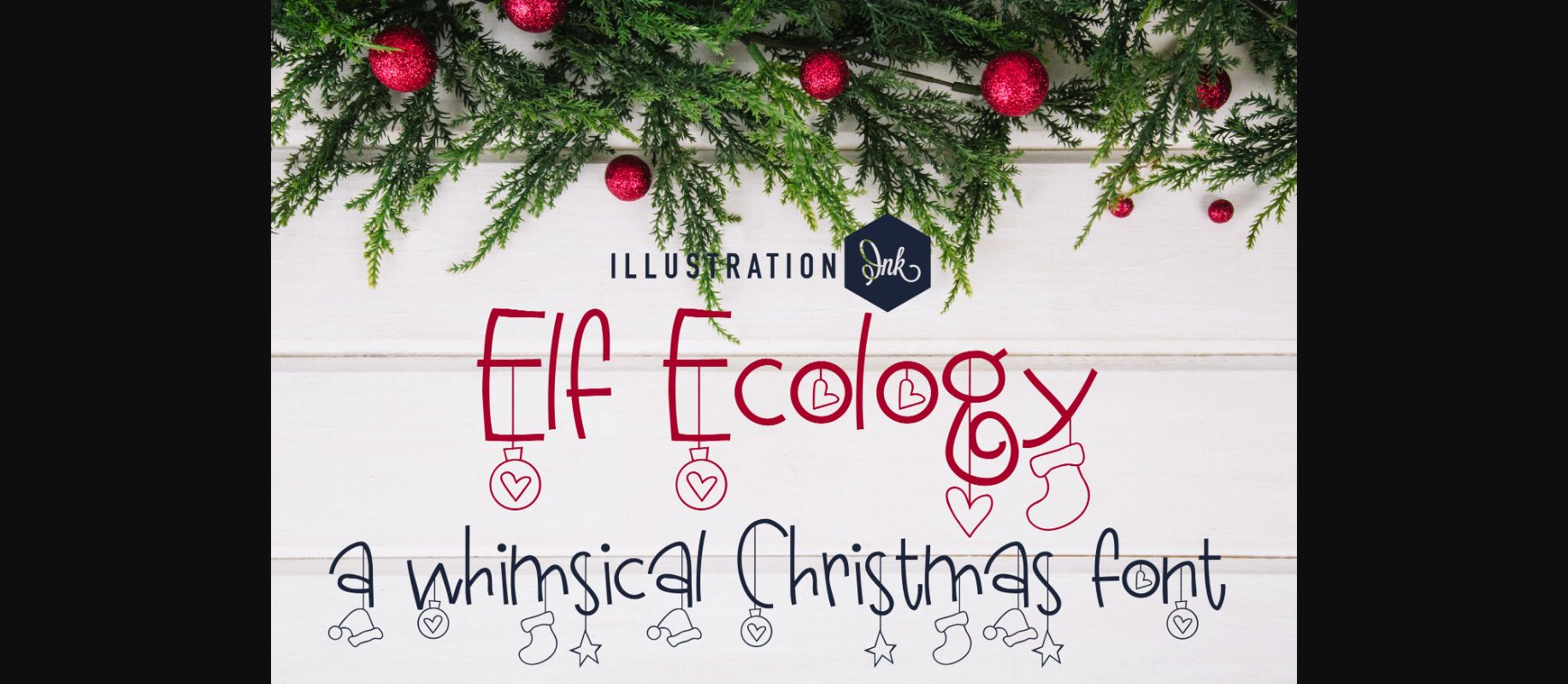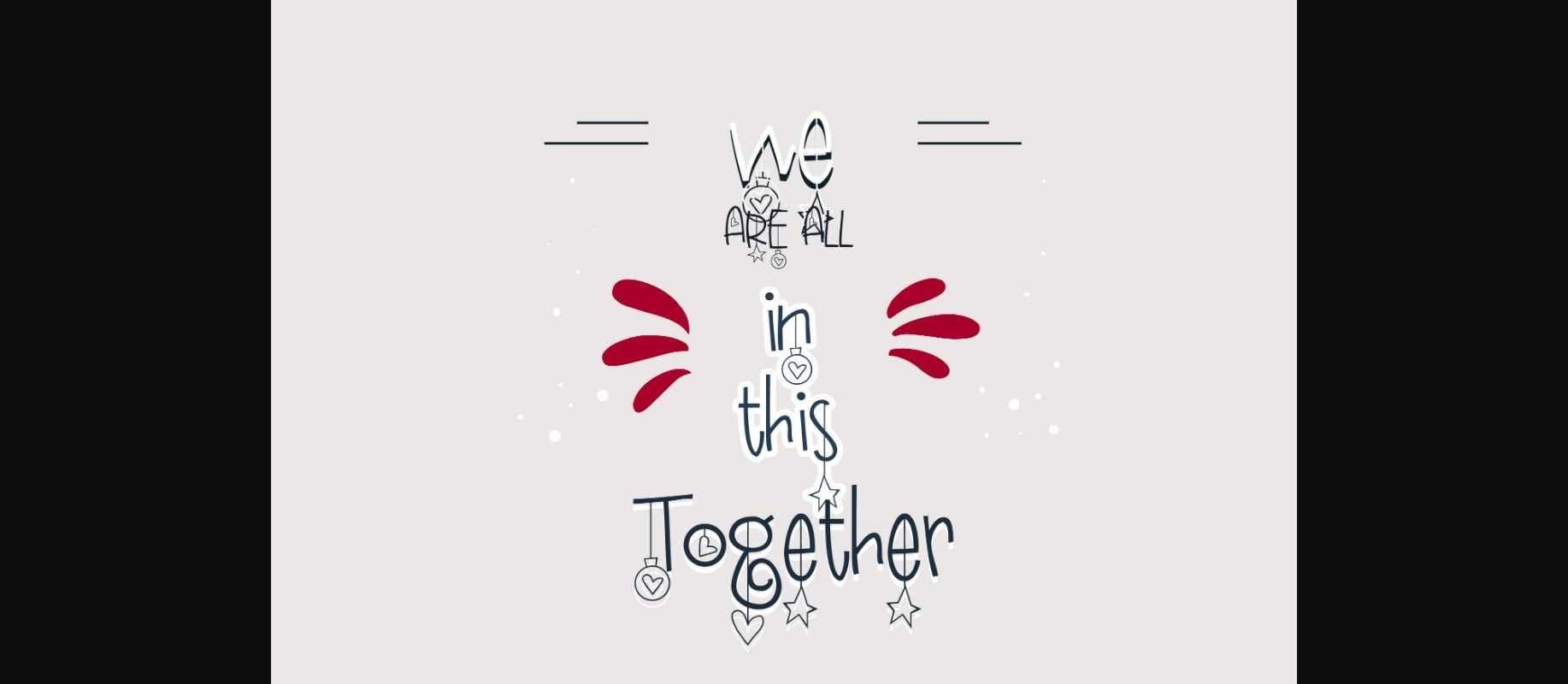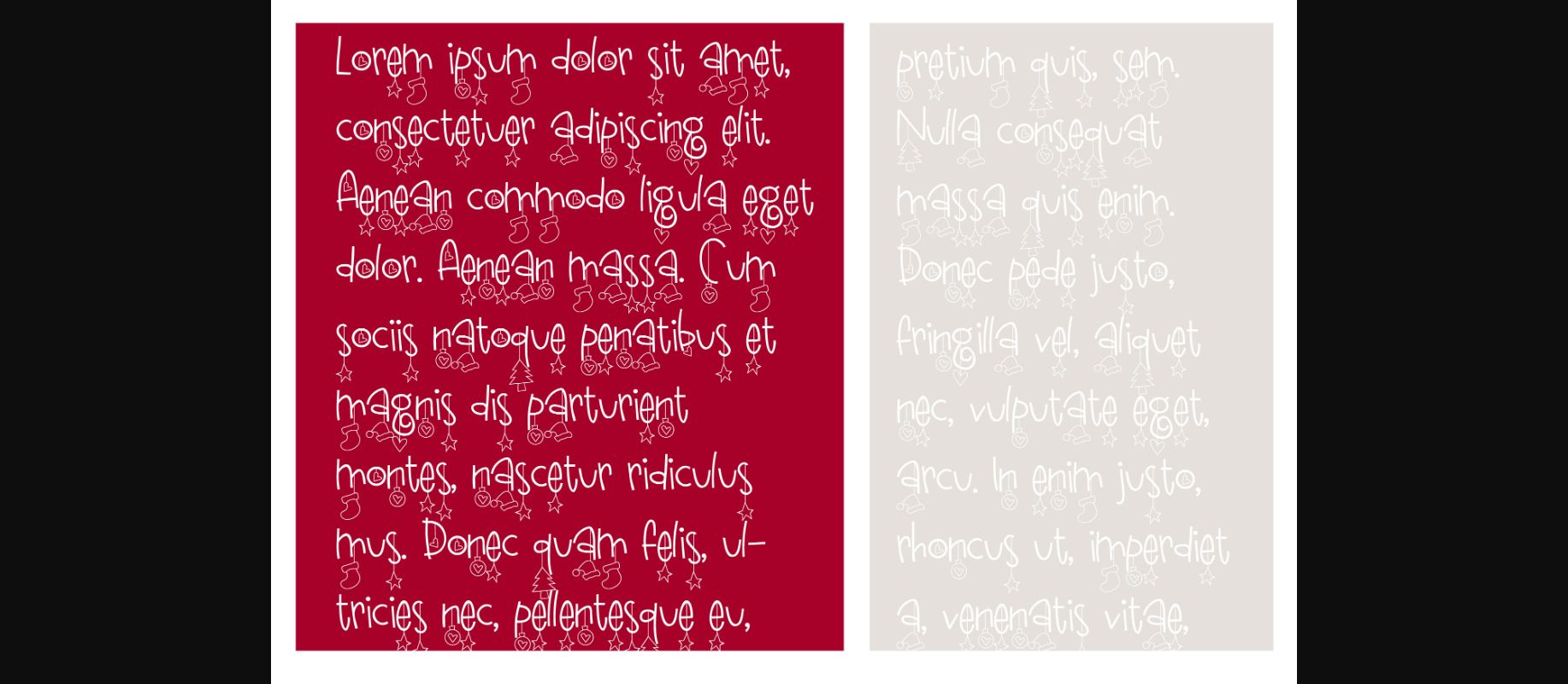
About Elf Ecology Font
Elf Ecology is a hand-written decorative font that features Christmas items dangling throughout. This font is neatly crafted and highly detailed. Whatever the topic, this font will be a wonderful asset to your font library, as it has the potential to enhance any creation.